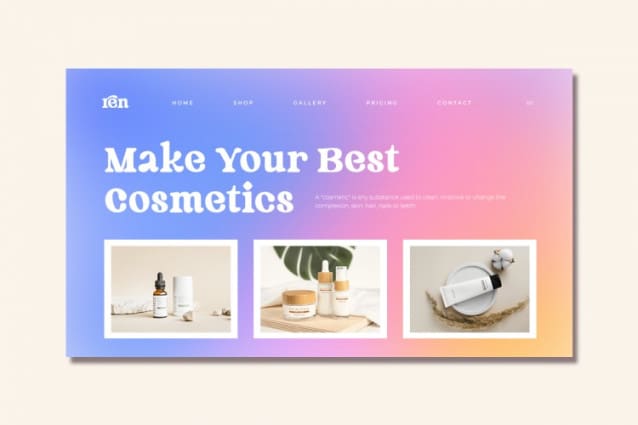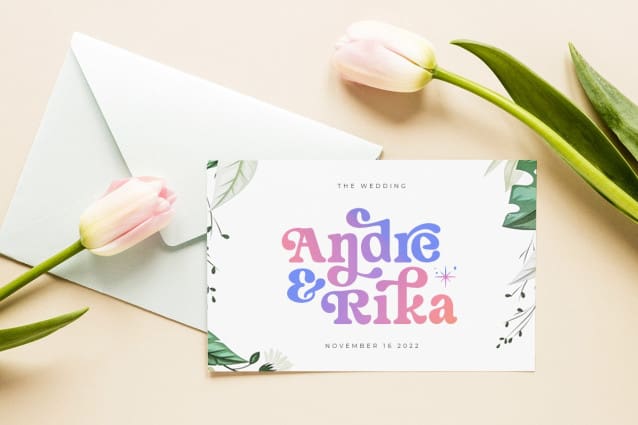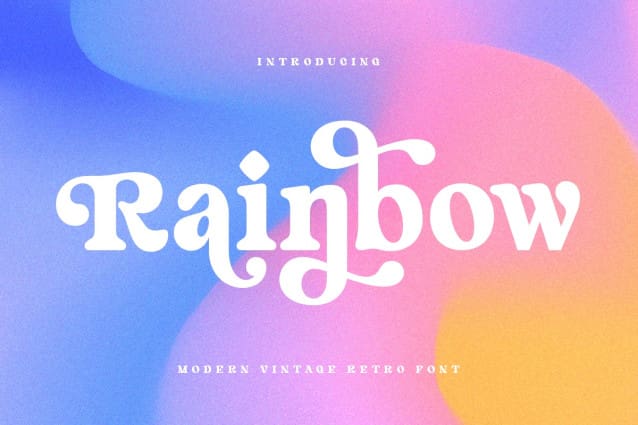
Rainbow Retro Font
Rainbow Retro Font A New Vintage font that we created special for Unique branding needs, with extra ligature in unique style that ready to add value of your brand. It’s so nice to leverage designer or product owner that need solutions to make their design look more unique and vintage.